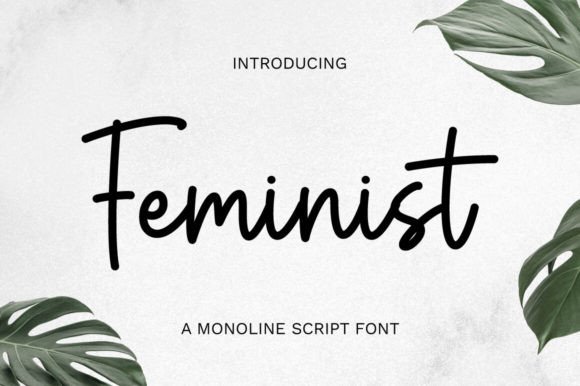
Feminist Font: The Epitome of Elegance and Sophistication
In the realm of typography, fonts play a pivotal role in conveying the tone and aesthetic of a brand or design. Among the numerous fonts available, Feminist Font stands out as a beacon of elegance and sophistication. This beautiful, well-balanced, and graceful script font has been making waves in the design community, and for good reason. Defined by smooth curves, Feminist Font is perfect for fashion branding or editorial designs that require a touch of refinement and poise.
The Characteristics of Feminist Font
Feminist Font is a script font that exudes femininity and elegance. Its smooth curves and flowing lines create a sense of continuity and harmony, making it perfect for designs that require a touch of sophistication. The font’s well-balanced structure ensures that it is easy to read, even at smaller sizes, making it versatile for various applications.
One of the defining features of Feminist Font is its beautiful, cursive script. The font’s letters are intricately designed, with each one flowing seamlessly into the next. This creates a sense of fluidity and movement, making the font perfect for designs that require a sense of dynamism.
The Benefits of Using Feminist Font
Feminist Font offers numerous benefits for designers and brands looking to create elegant and sophisticated designs. Some of the key benefits include:
- Elegance and Sophistication: Feminist Font adds a touch of refinement and poise to any design, making it perfect for fashion branding or editorial designs.
- Versatility: The font’s well-balanced structure and smooth curves make it easy to read, even at smaller sizes, making it versatile for various applications.
- Uniqueness: Feminist Font’s beautiful, cursive script sets it apart from other fonts, making it perfect for brands looking to create a unique and distinctive identity.
Perfect for Fashion Branding and Editorial Designs
Feminist Font is particularly well-suited for fashion branding and editorial designs. The font’s elegant and sophisticated aesthetic makes it perfect for creating high-end fashion designs that exude luxury and refinement.
In fashion branding, Feminist Font can be used to create stunning logos, packaging, and advertising materials that showcase a brand’s personality and aesthetic. The font’s smooth curves and flowing lines create a sense of continuity and harmony, making it perfect for designs that require a touch of sophistication.
In editorial designs, Feminist Font can be used to create beautiful and elegant layouts that showcase a publication’s tone and aesthetic. The font’s well-balanced structure and easy readability make it perfect for body text, while its beautiful, cursive script makes it perfect for headlines and titles.
How to Use Feminist Font Effectively
To use Feminist Font effectively, designers and brands should consider the following tips:
- Pair with Neutral Colors: Feminist Font looks stunning when paired with neutral colors such as black, white, and beige. These colors allow the font’s elegant and sophisticated aesthetic to take center stage.
- Use for Headlines and Titles: Feminist Font’s beautiful, cursive script makes it perfect for headlines and titles. Use it to create stunning headings that showcase a brand’s personality and aesthetic.
- Experiment with Font Sizes: Feminist Font is versatile and can be used at various font sizes. Experiment with different font sizes to create visual interest and hierarchy in your designs.
Feminist Font is a beautiful, well-balanced, and graceful script font that is perfect for fashion branding or editorial designs. Defined by smooth curves, this elegant and sophisticated font adds a touch of refinement and poise to any design. With its versatility, uniqueness, and stunning aesthetic, Feminist Font is a must-have for designers and brands looking to create high-end designs that exude luxury and sophistication.
- What is Feminist Font?: Feminist Font is a beautiful, well-balanced, and graceful script font defined by smooth curves.
- What is Feminist Font used for?: Feminist Font is perfect for fashion branding or editorial designs that require a touch of elegance and sophistication.
- Is Feminist Font easy to read?: Yes, Feminist Font is well-balanced and easy to read, even at smaller sizes.